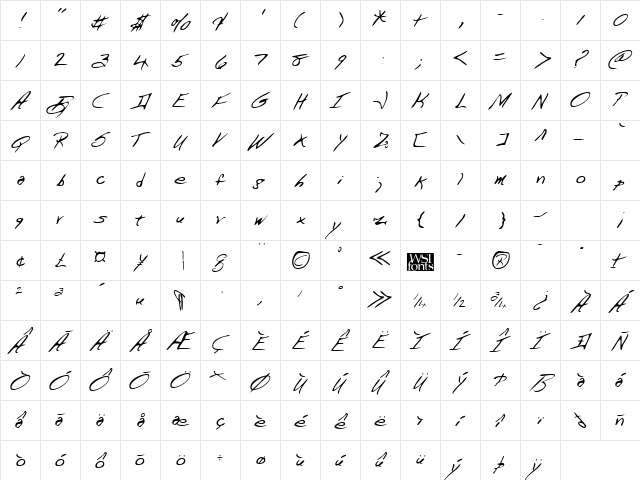
MannysHand Regular
Design Context for MannysHand Typeface
MannysHand brings a calligraphic fluidity to the page — its connecting strokes and expressive curves give it an unmistakably human quality.
Font Pairing: Combine MannysHand with a simple geometric sans for maximum contrast — the tension between flowing curves and clean structure is a classic typographic pairing.
Pro Tip: Pair MannysHand with a clean sans-serif for supporting text. The contrast between fluid script and geometric structure creates an elegant typographic hierarchy.